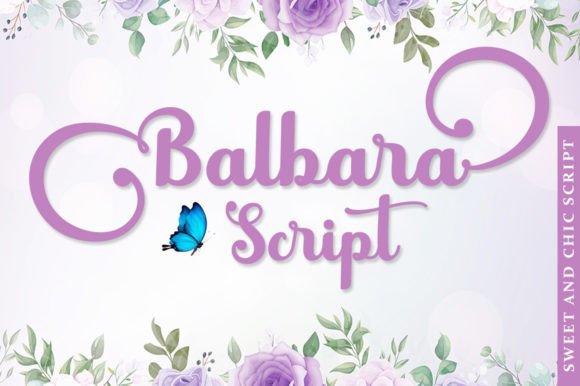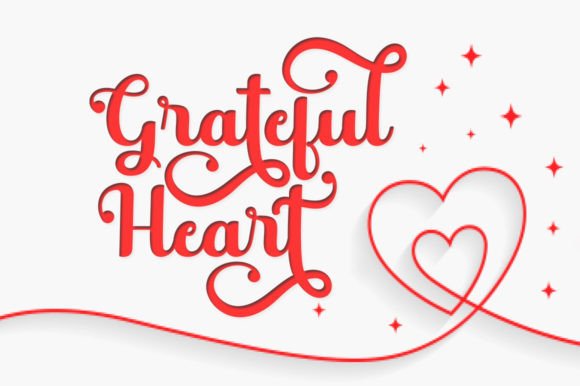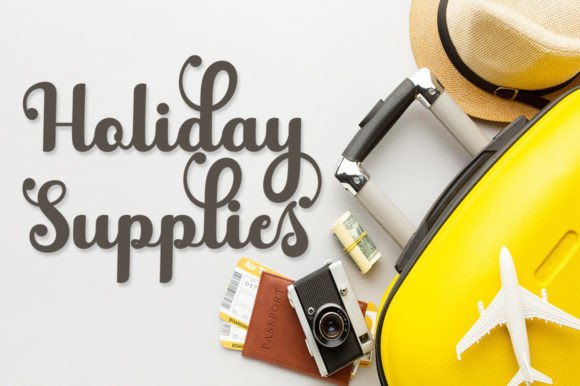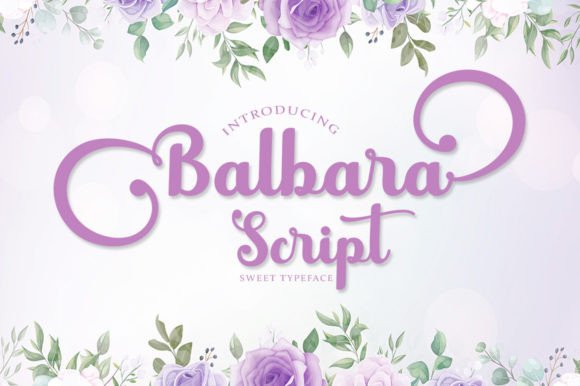
Balbara Script Font
Balbara Script is a stylish and incredibly elegant handwritten font. It is defined by smooth curves and is perfect for fashion branding or editorial designs. Use this font for your designs and explore its endless possibilities.